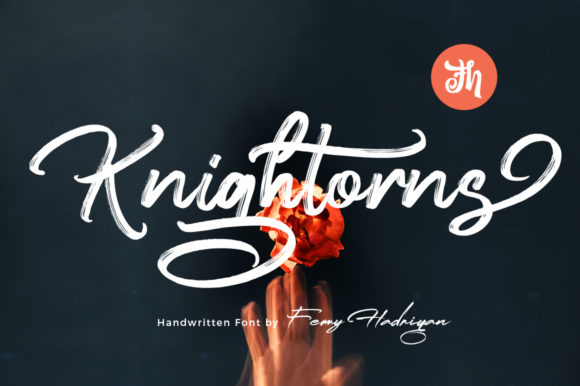
Unleash your creativity with Knightorns Font, the captivating script font that adds a touch of charm and authenticity to your designs. This beautiful handwritten font, crafted by feydesign, is a perfect blend of brush pen and pencil, resulting in an endearing and genuine look. Say goodbye to ordinary fonts and embrace the uniqueness of Knightorns, the ultimate font for image text.
Immerse yourself in the world of Knightorns and discover its enchanting appeal. Its delicate strokes and flowing curves add a personal touch to your projects, making them stand out from the crowd. Whether you're creating stunning logos, heartfelt invitations, or eye-catching social media posts, Knightorns is your perfect companion.
With Knightorns Font, you'll find endless possibilities to bring your ideas to life. Its versatility knows no bounds, allowing you to use it for a wide range of projects. From personalized greeting cards to unique branding materials, Knightorns effortlessly adapts to your creative vision. Dive into the world of Knightorns and unlock a world of design possibilities.
Make a statement with Knightorns Font, the ultimate choice for designers and creatives seeking authenticity and charm. Its remarkable pairing of brush pen and pencil creates a look that's both captivating and endearing. Embrace the beauty of handwritten fonts and let Knightorns elevate your designs to new heights. Experience the magic of Knightorns today and transform your projects into works of art.